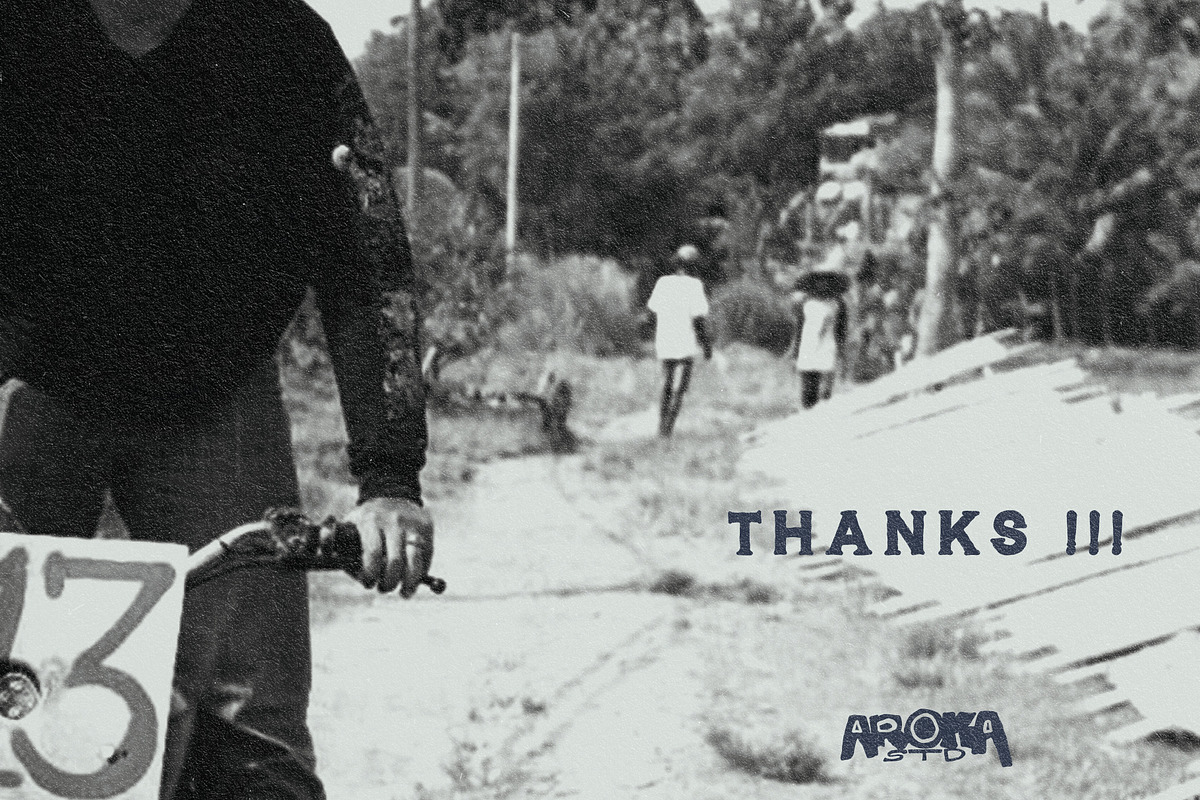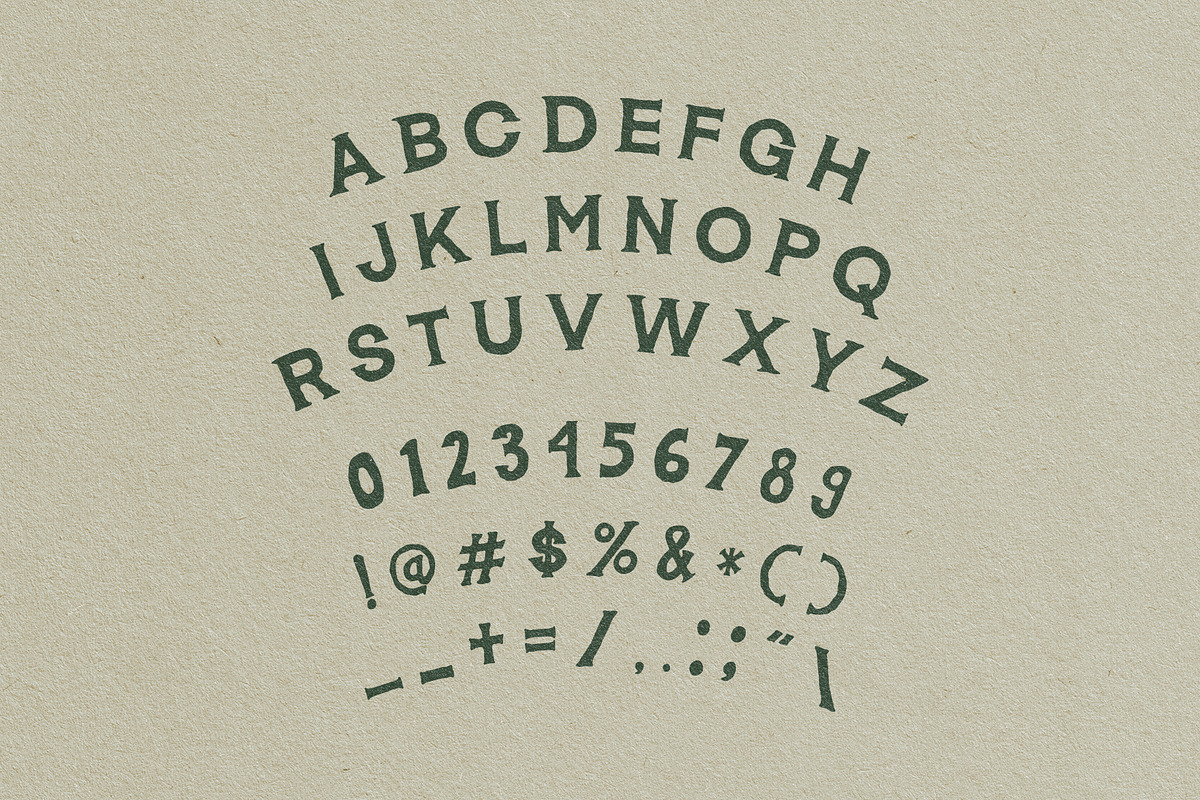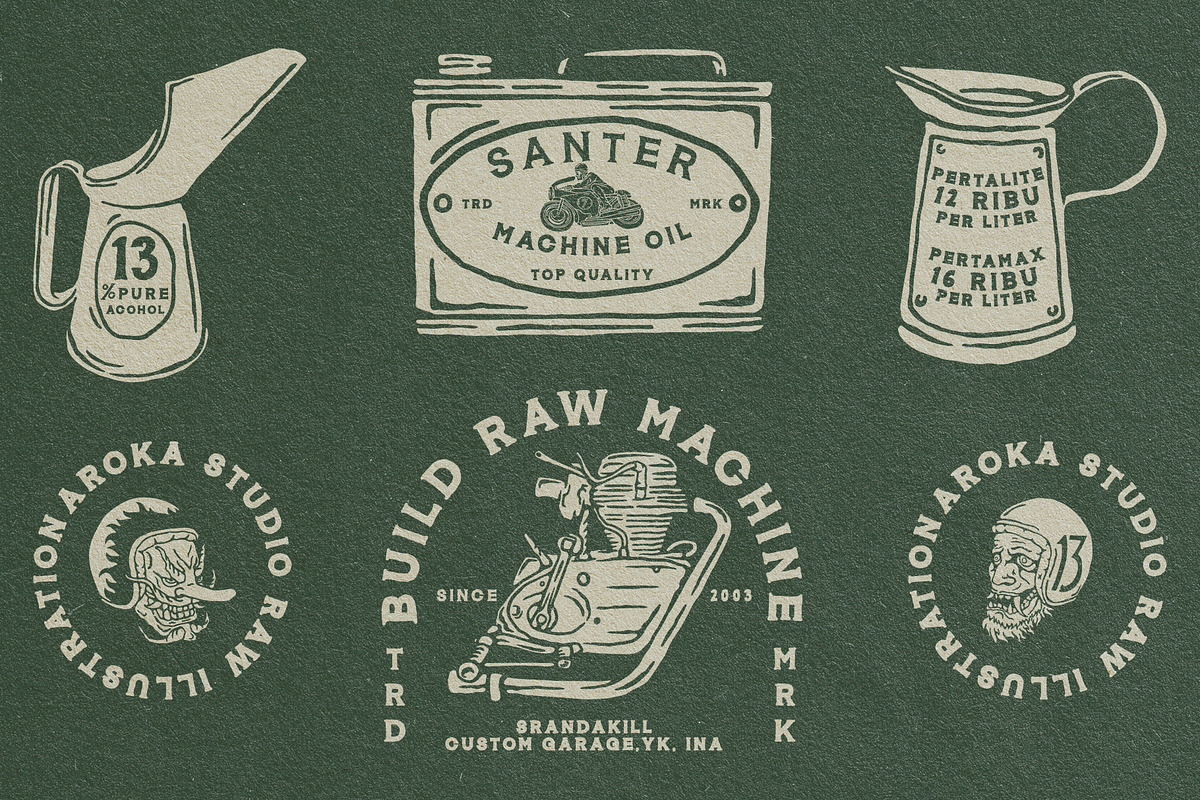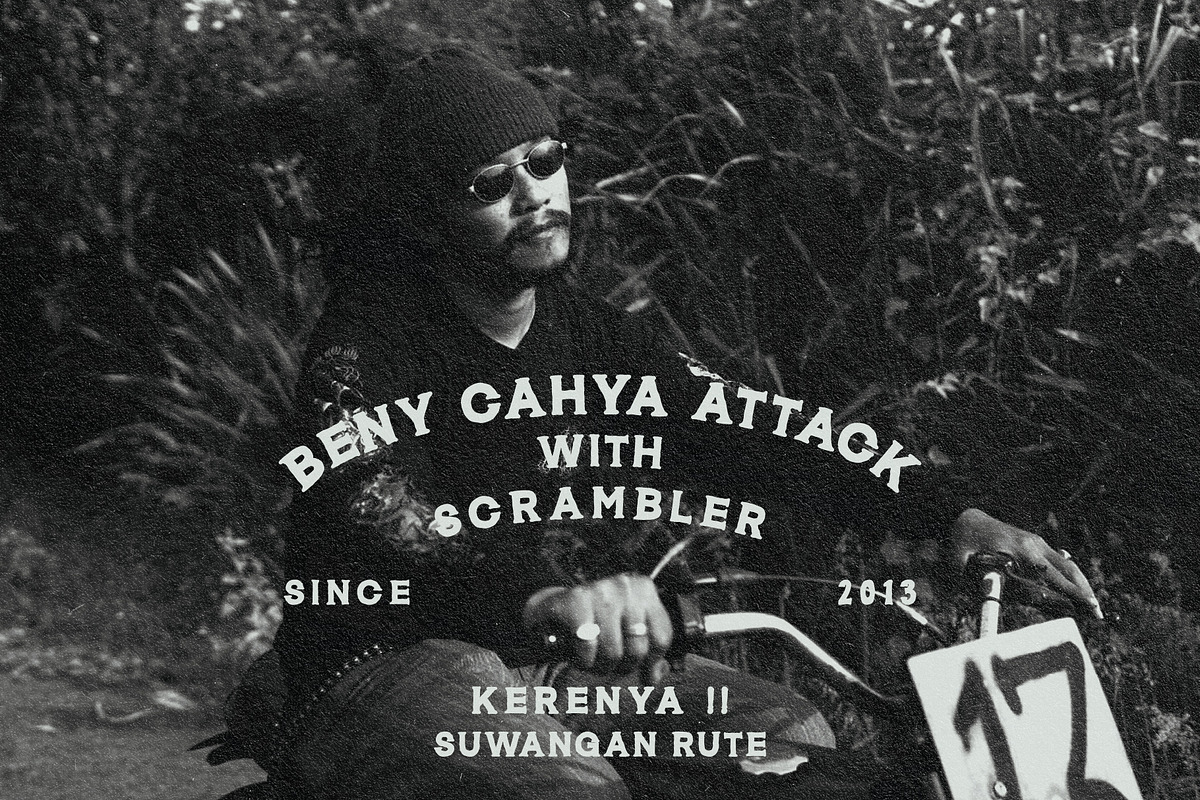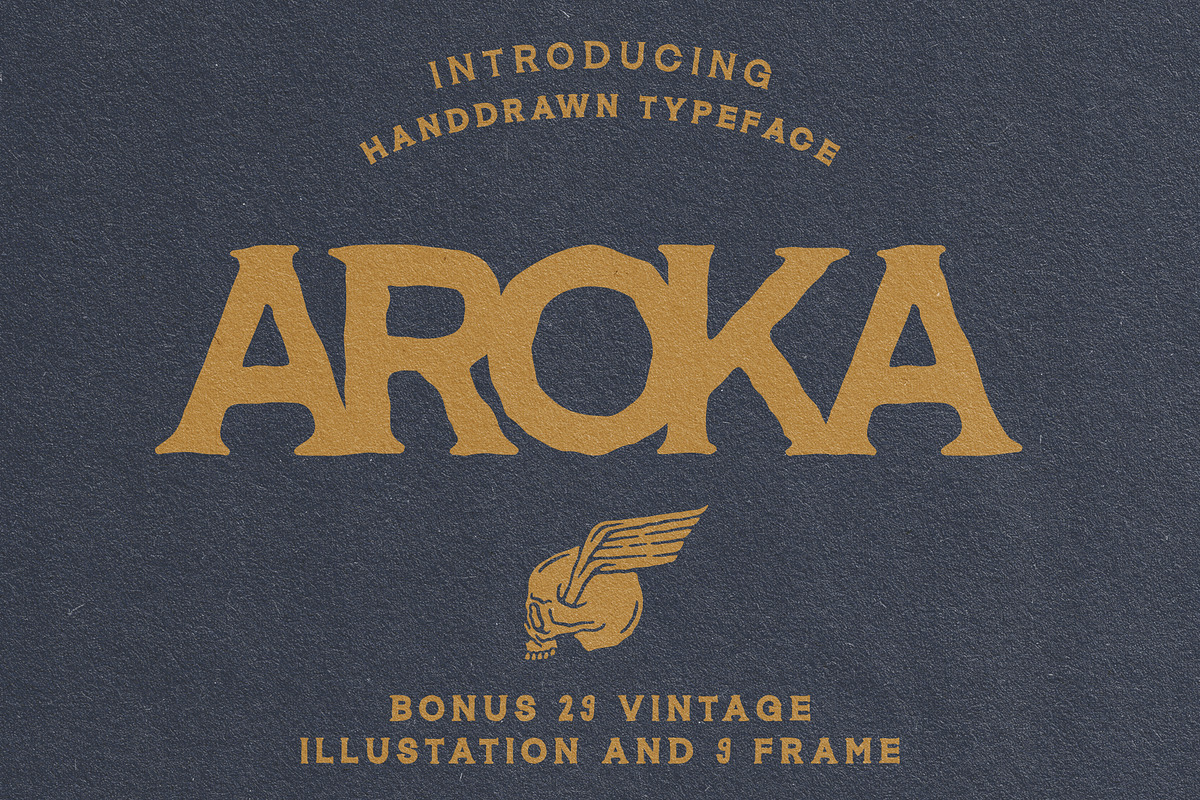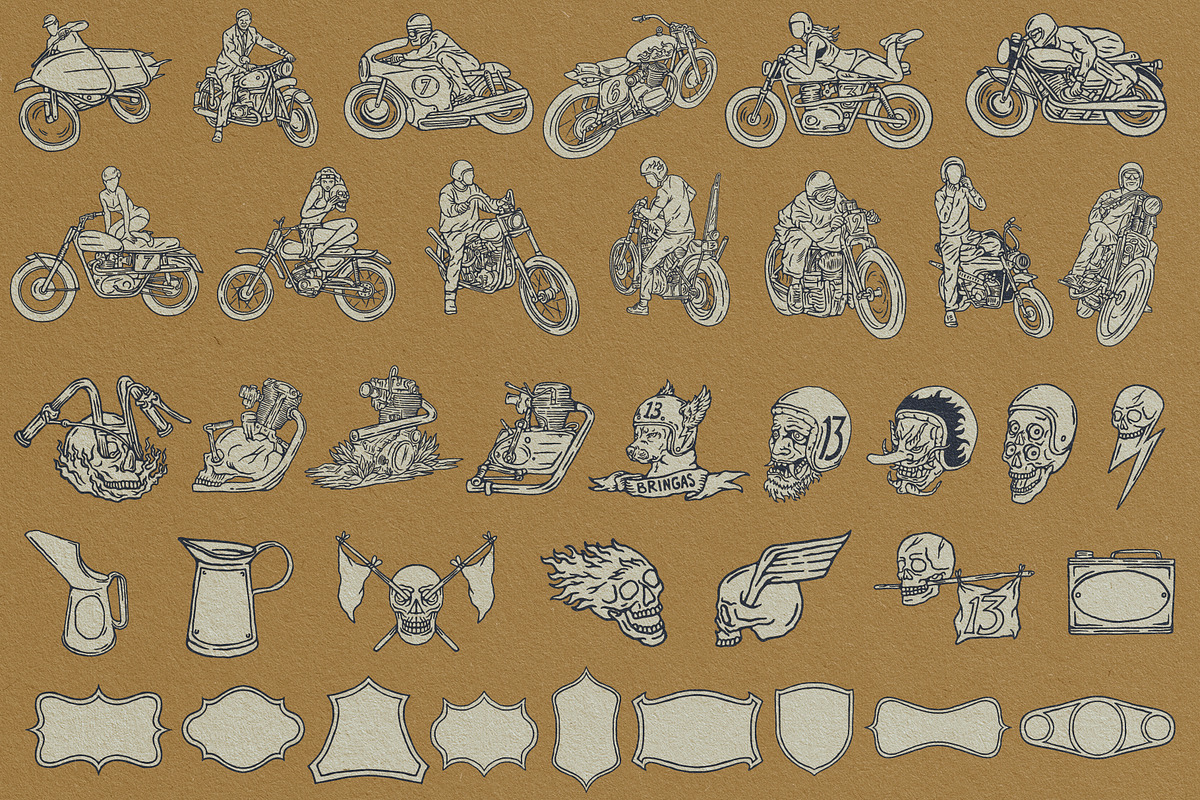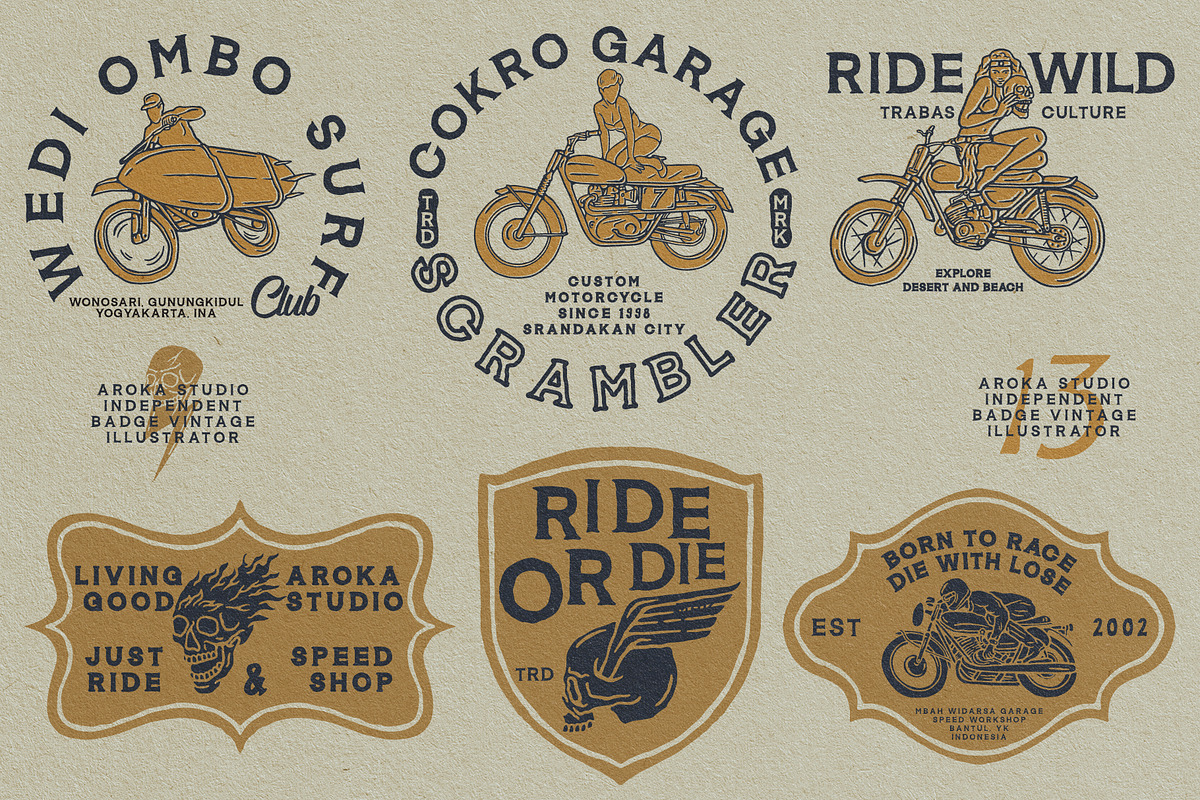
Aroka Serif + Free Illustration
Inspired by Custom Culture Vintage, Give your designs some good old college. You will get the bonus too!!! Free Illustration with Adobe Illustration, Eps, PDF Format ! Click the image for the details.